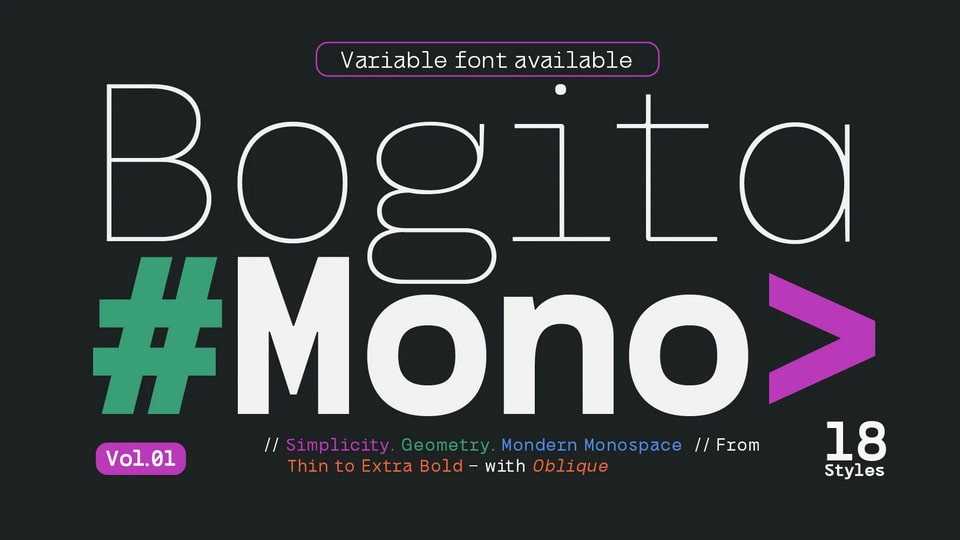
Download Bogita Mono font, a modern geometric monospace typeface designed with simplicity and precision in mind. It blends the clean structure of a coding font with a stylish contemporary aesthetic
Designer: Akhmad Hidayat